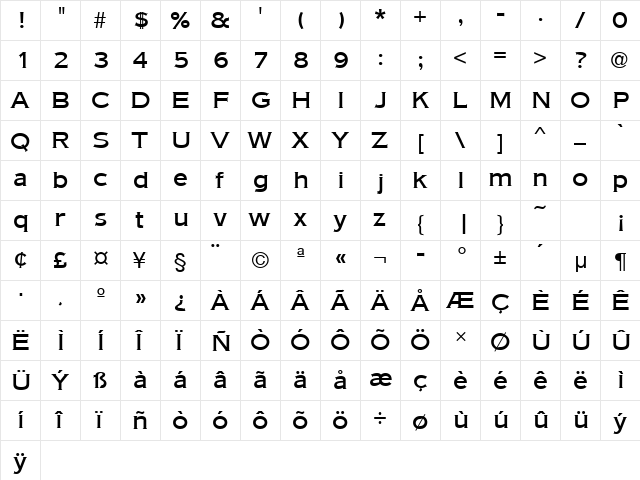
AmericanGotURWTMed Regular
Design Context for AmericanGotURWTMed Typeface
AmericanGotURWTMed is a composed and adaptable typeface that performs quietly and consistently across a wide range of design contexts.